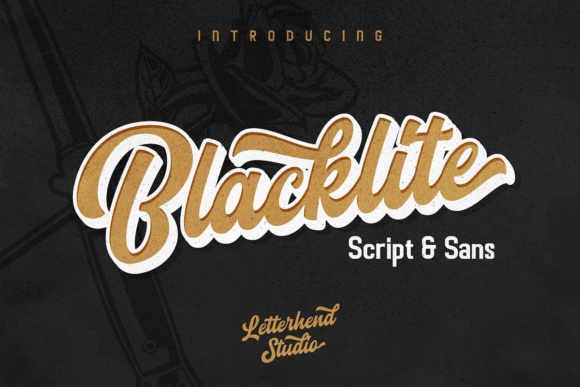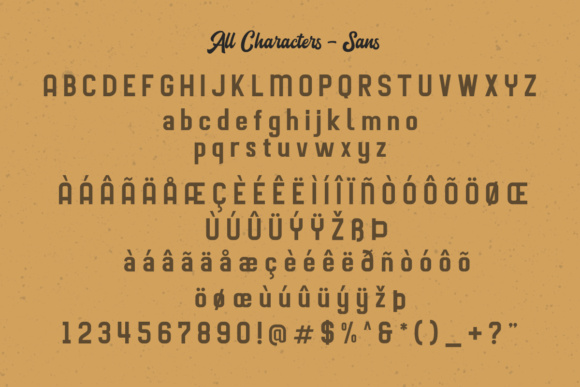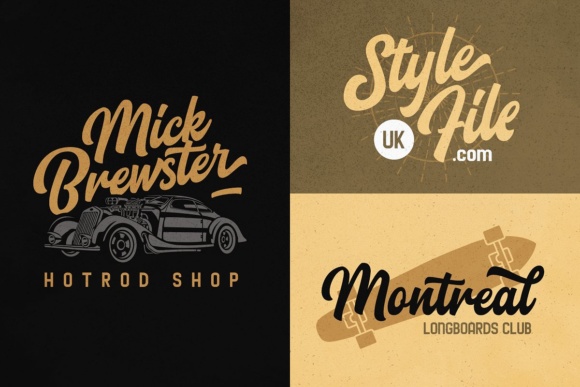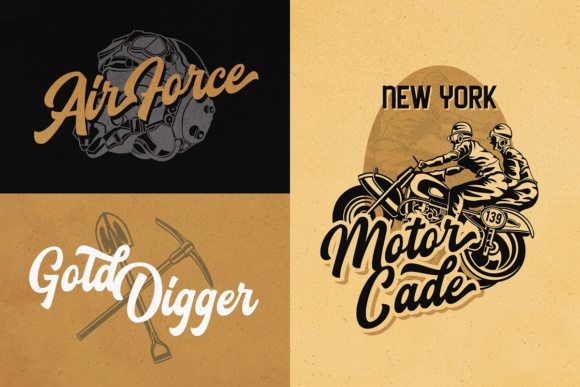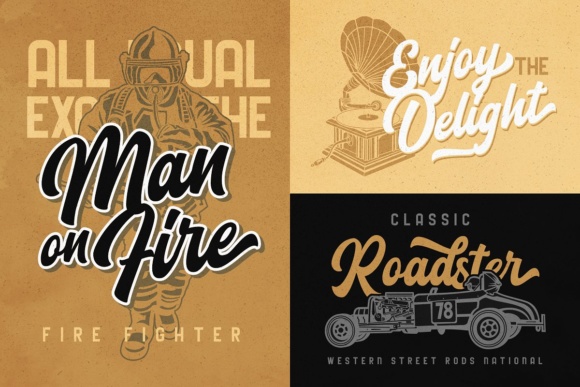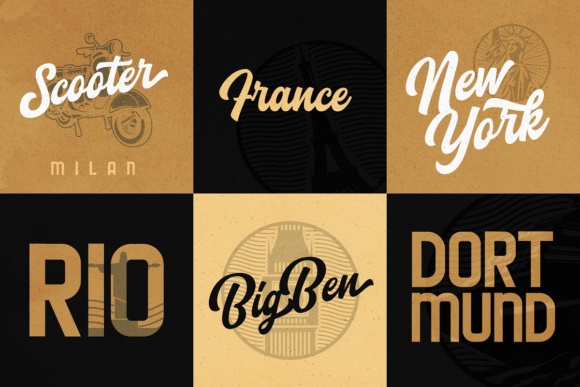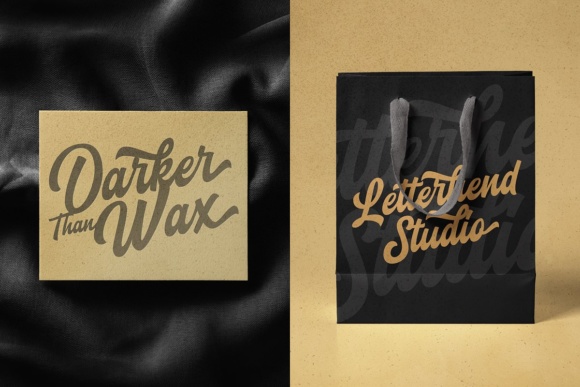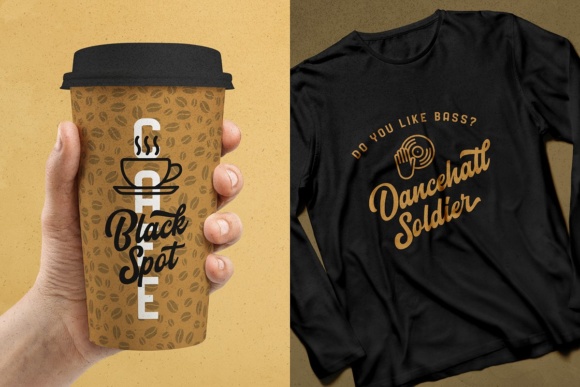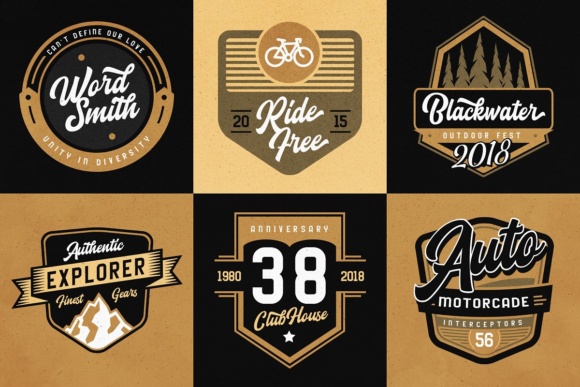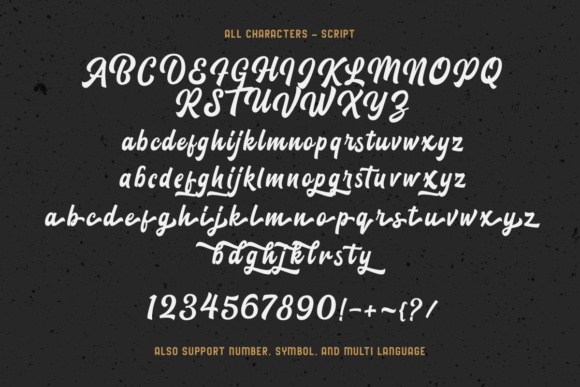
HomeScript FontsBlacklite Script Font Script Fonts Blacklite Script Font FacebookXPinterestWhatsApp Blacklite Script Font Poster 2 Blacklite Script Font Poster 3 Blacklite Script Font Poster 4 Blacklite Script Font Poster 5 Blacklite Script Font Poster 6 Blacklite Script Font Poster 7 Blacklite Script Font Poster 8 Blacklite Script Font Poster 9 Blacklite Script Font Poster 10 About Blacklite Script Font Blacklite is a bold script that stands out from the crowd! Perfect to be used as logotype, badge or label! DOWNLOAD ON CREATIVE FABRICAThis font is sold and delivered by Creative Fabrica. Font Canyon may earn a commission if you buy through this link. People also explored Rosellia Simone Font Amelinda Script Font Rellaiya Font Archer Font David Halloween Font Ladies & Gentlemen Font Herdiny Font Goes Pagi Font New Sinergetic Font 359 0 TagsBlacklite Script Font Previous articleFlanders Script FontNext articlePascal Font LEAVE A REPLY Cancel reply Comment: Please enter your comment! Name:* Please enter your name here Email:* You have entered an incorrect email address! Please enter your email address here Website: Save my name, email, and website in this browser for the next time I comment. Personal Use Free Lost Treasure Personal Use Free Read more about this font The 10 Best Handwriting Fonts to Add Personality to Your Designs Blog Read more about this font Gupis Personal Use Free Read more about this font Reztop Personal Use Free Read more about this font BLOG To increase your work productivity, choose the most readable fonts. In today's fast-paced work environment, where digital communication and information consumption are integral to our daily routines, the choice of fonts can significantly impact... Top 7 Google Fonts Alternatives for Faster and Privacy-Friendly Web Design (2025) Exploring Font Trends Transform Your Website: Elevate Your Typography with 7 Best Web Font Generators